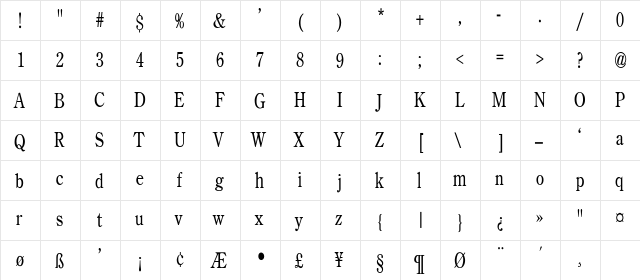
CenturyOldStyle-Light Condensed Regular
Design Context for CenturyOldStyle-Light Condensed Typeface
CenturyOldStyle-Light Condensed brings classic typographic sensibility to the table — its serifs and measured letterforms reflect centuries of print heritage. The delicate stroke weight brings airiness and refinement to layouts. Its narrow stance lets it pack a punch even in space-constrained designs.
Pro Tip: Set CenturyOldStyle-Light Condensed at slightly larger body copy sizes than you would a regular-weight serif to compensate for its delicate stroke contrast.